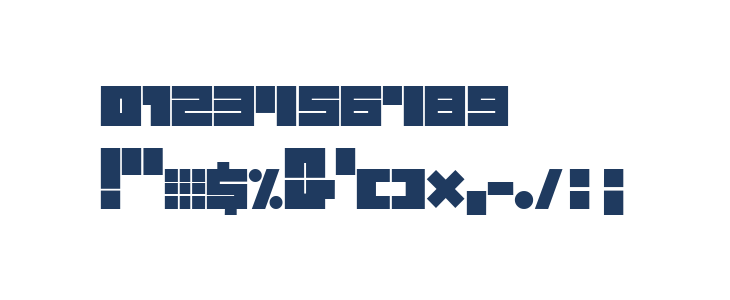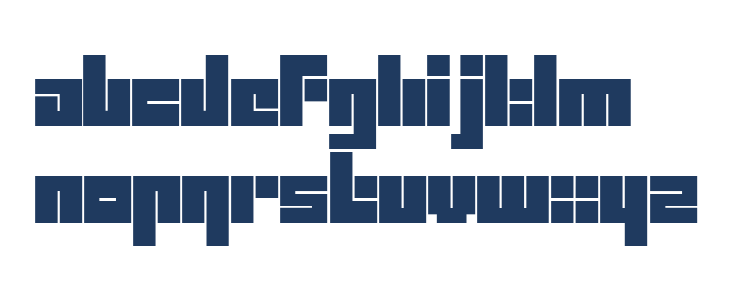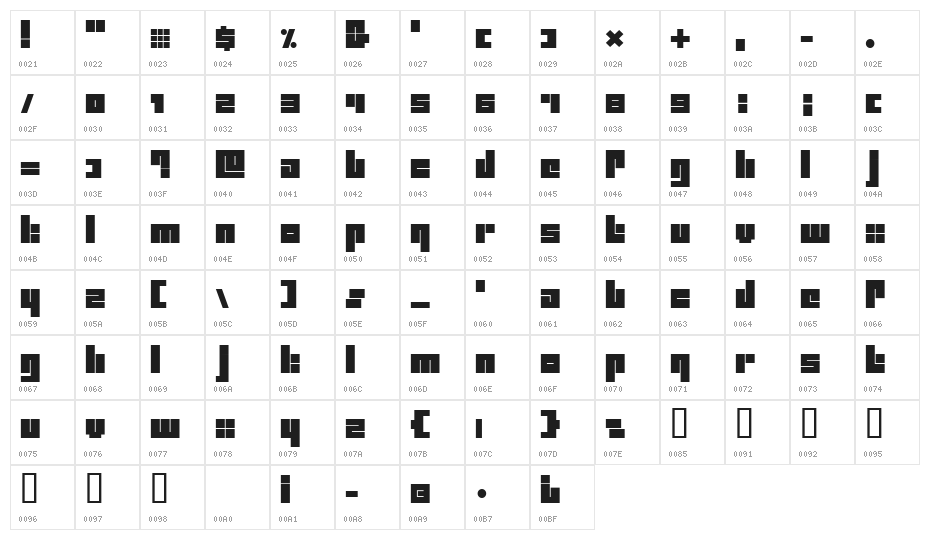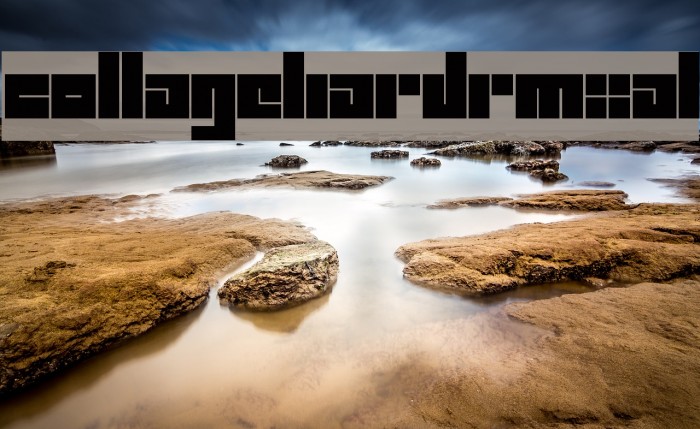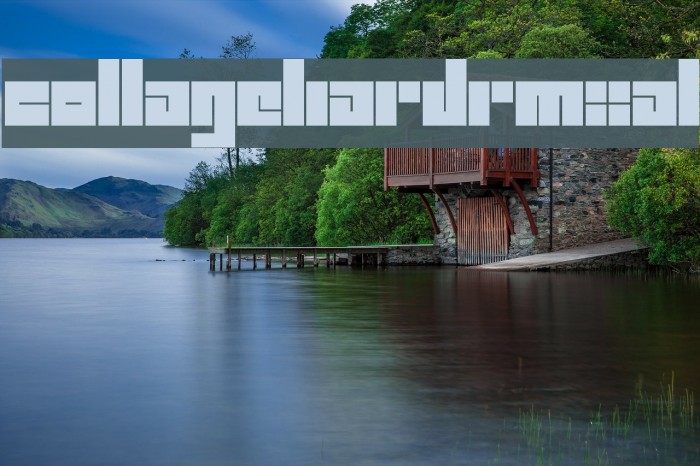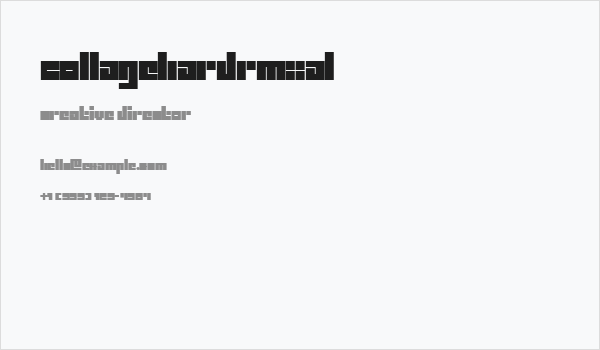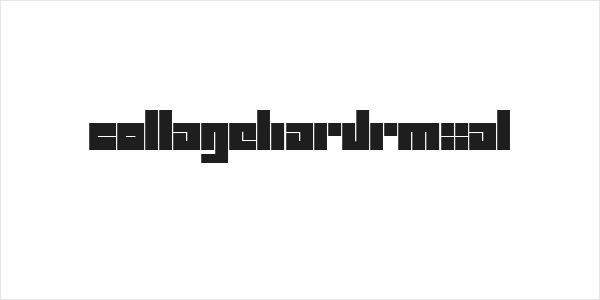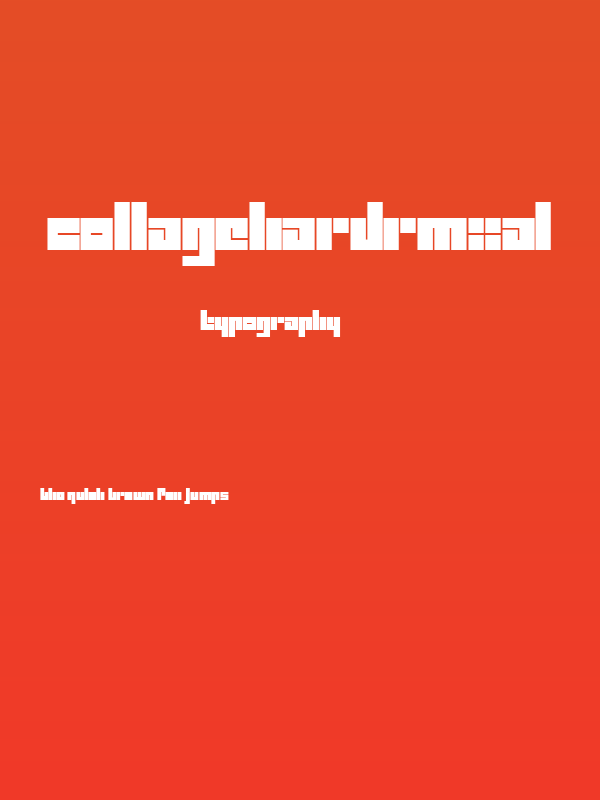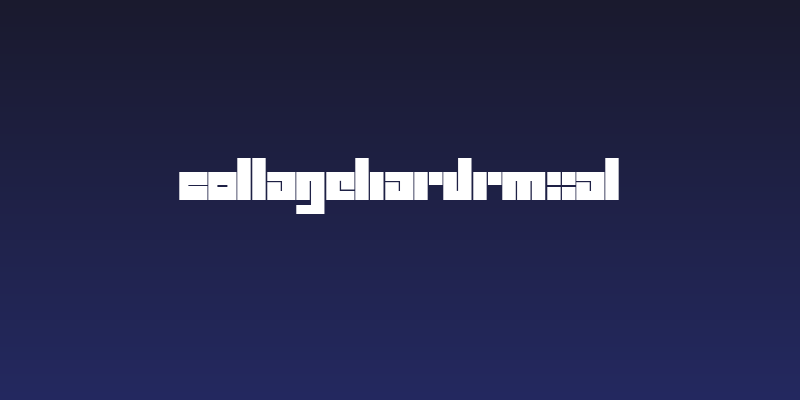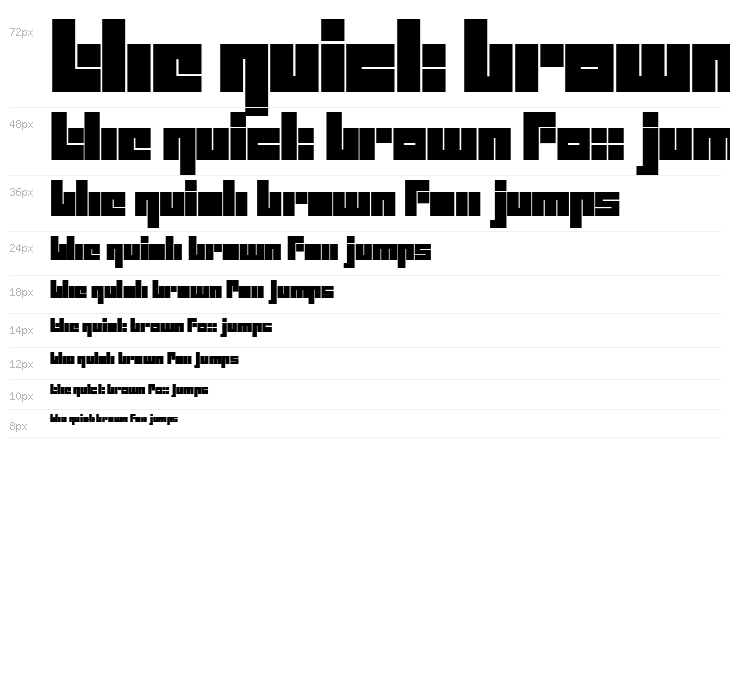
CollageHardRmxAl Font
CollageHardRmxAl Description
This font features a bold, geometric design with a strong emphasis on rectangular shapes and sharp angles. Each character is constructed with a uniform thickness, creating a cohesive and blocky appearance. The uppercase and lowercase letters share similar dimensions, contributing to a monospaced feel. The numerals and special characters maintain the same geometric style, ensuring consistency across all glyphs. This font's unique structure makes it highly suitable for modern and futuristic design projects, where a strong visual impact is desired.
| Proposed Projects | Ideal for digital art, video game interfaces, posters, and branding that requires a modern, edgy look. |